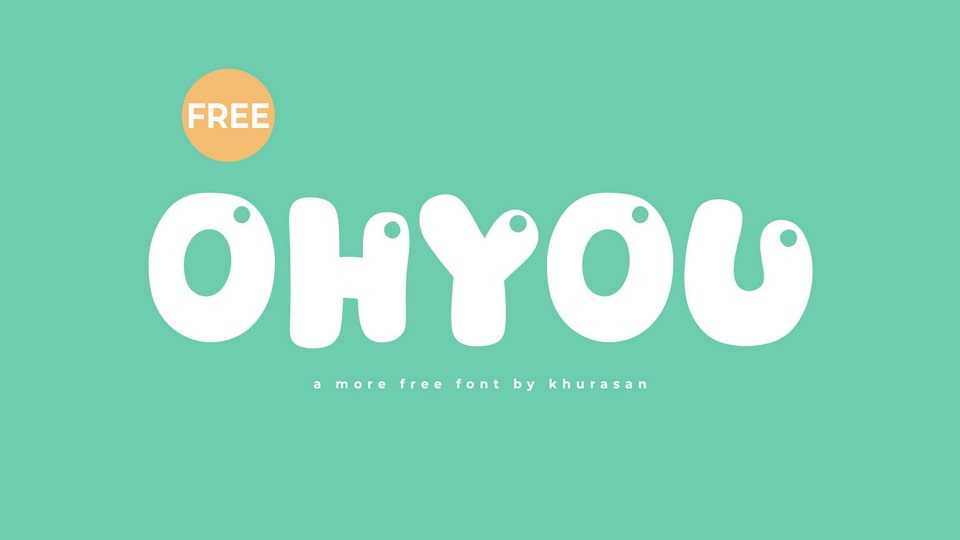
Download Ohyou font, a delightful chubby, playful, and fun hand-crafted cartoon typeface that injects a dose of whimsy and charm into your designs. Ohyou font is the perfect choice for projects that demand a friendly and animated touch, from children’s book illustrations to lively posters and packaging.